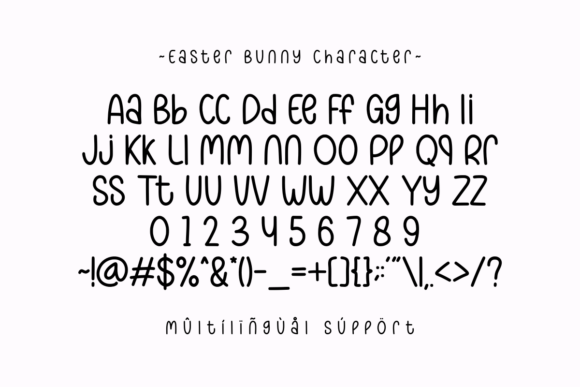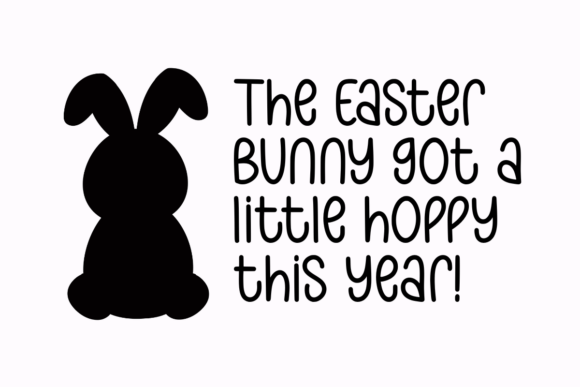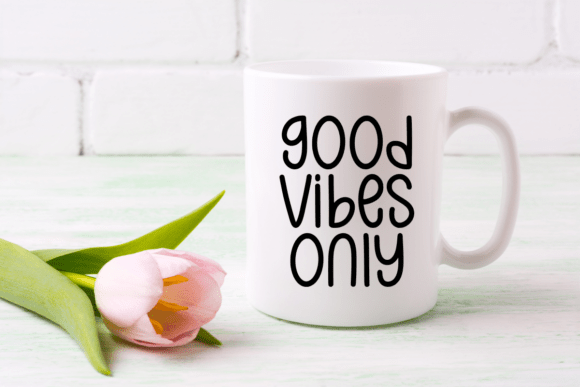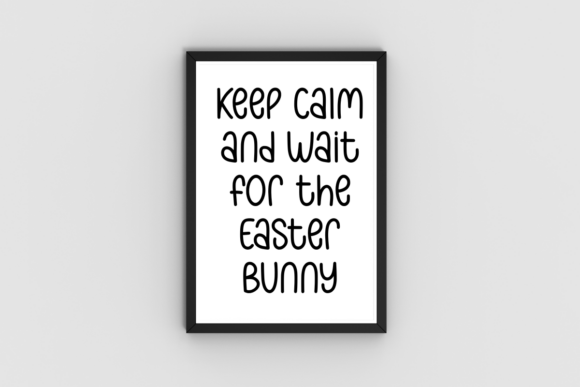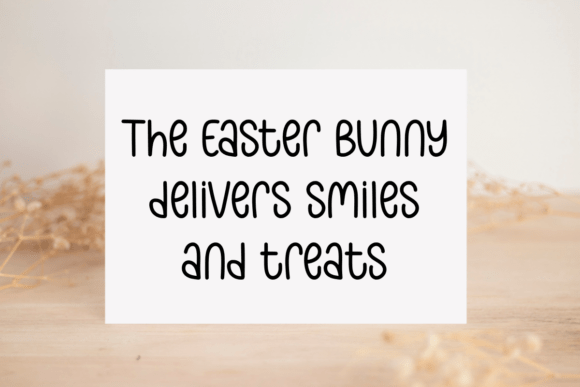
Easter Bunny Font: The Perfect Addition to Your Holiday Designs
Are you looking for a font that will add a touch of festive fun to your Easter-themed designs? Look no further than the Easter Bunny Font! This playful sans serif font is perfect for creating cards, invitations, and other holiday-themed graphics that are sure to delight.
What is Easter Bunny Font?
Easter Bunny Font is a specially designed font that captures the spirit of the Easter holiday. With its bold lines and playful curves, this font is ideal for creating eye-catching designs that are sure to stand out. Whether you’re a designer, crafter, or DIY enthusiast, this font is a must-have for adding a touch of holiday cheer to your projects.
Key Features of Easter Bunny Font
- Playful curves: The Easter Bunny Font features playful curves that give it a fun and festive feel.
- Bold lines: The font’s bold lines make it perfect for creating eye-catching designs that are sure to stand out.
- Sans serif: The font’s sans serif design makes it easy to read and perfect for use in a variety of design projects.
- Festive: The Easter Bunny Font is specifically designed to capture the spirit of the Easter holiday, making it perfect for creating holiday-themed designs.
Uses for Easter Bunny Font
The Easter Bunny Font is a versatile font that can be used in a variety of design projects, including:
- Easter cards: Create festive Easter cards for friends and family using the Easter Bunny Font.
- Invitations: Use the font to create eye-catching invitations for Easter parties and events.
- Holiday graphics: Add a touch of holiday cheer to your graphics with the Easter Bunny Font.
- Craft projects: Use the font to add a personal touch to your craft projects, such as Easter-themed scrapbook pages and DIY decorations.
Why Choose Easter Bunny Font?
There are many fonts to choose from, but the Easter Bunny Font stands out for its unique combination of playfulness and festivity. Here are just a few reasons why you should choose the Easter Bunny Font for your next design project:
- Unique: The Easter Bunny Font is a one-of-a-kind font that is sure to make your designs stand out.
- Festive: The font is specifically designed to capture the spirit of the Easter holiday, making it perfect for creating holiday-themed designs.
Tips for Using Easter Bunny Font
Here are a few tips for getting the most out of the Easter Bunny Font:
- Experiment with colors: The Easter Bunny Font looks great in a variety of colors, so don’t be afraid to experiment and find the perfect color for your design.
- Pair with other fonts: The Easter Bunny Font pairs well with other sans serif fonts, so consider pairing it with another font to create a unique and eye-catching design.
- Use in combination with images: The Easter Bunny Font looks great in combination with Easter-themed images, such as eggs, bunnies, and flowers.
The Easter Bunny Font is a fun and festive font that is perfect for adding a touch of holiday cheer to your designs. With its playful curves and bold lines, this font is ideal for creating eye-catching designs that are sure to stand out. Whether you’re a designer, crafter, or DIY enthusiast, the Easter Bunny Font is a must-have for your next Easter-themed design project.